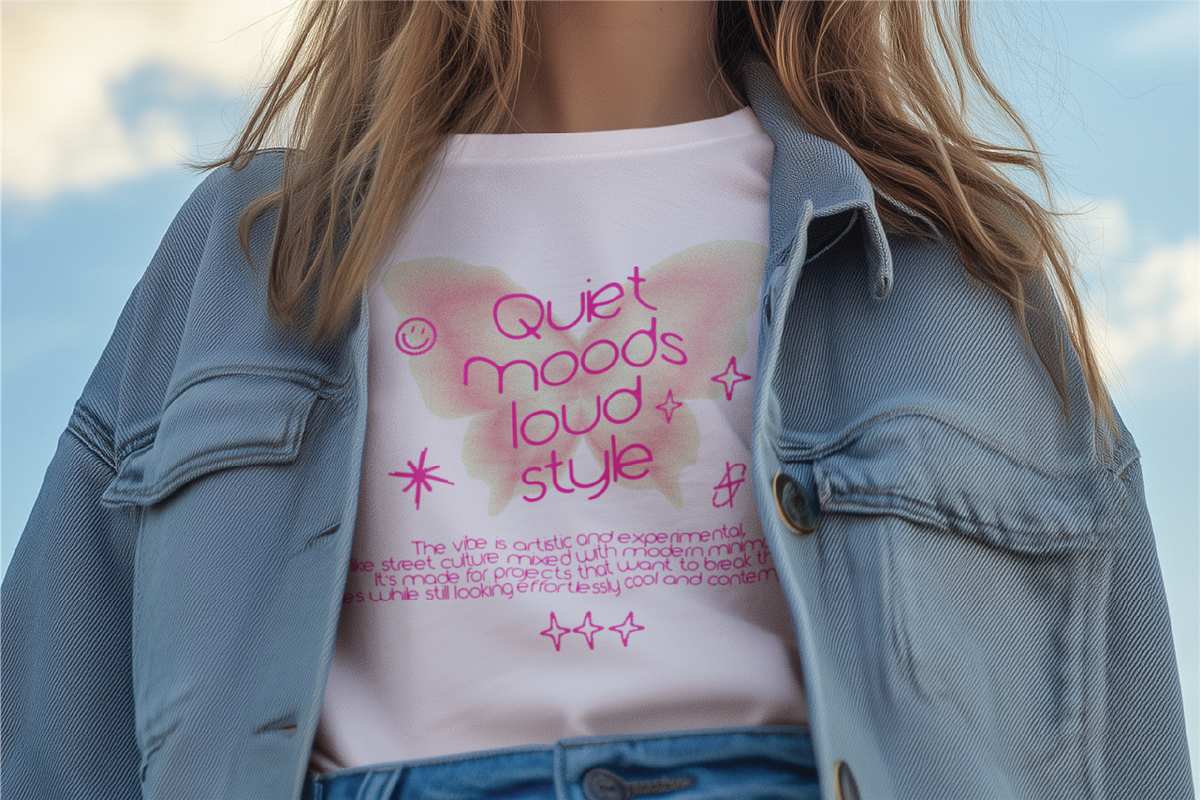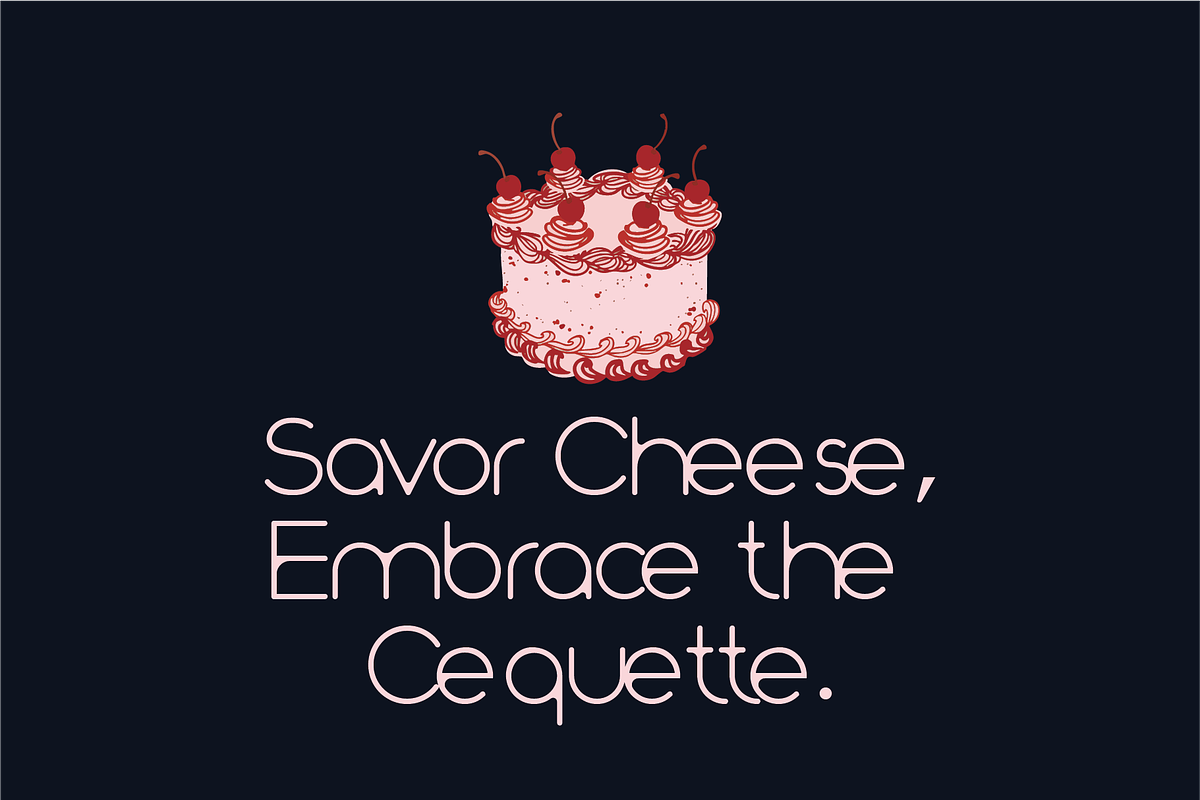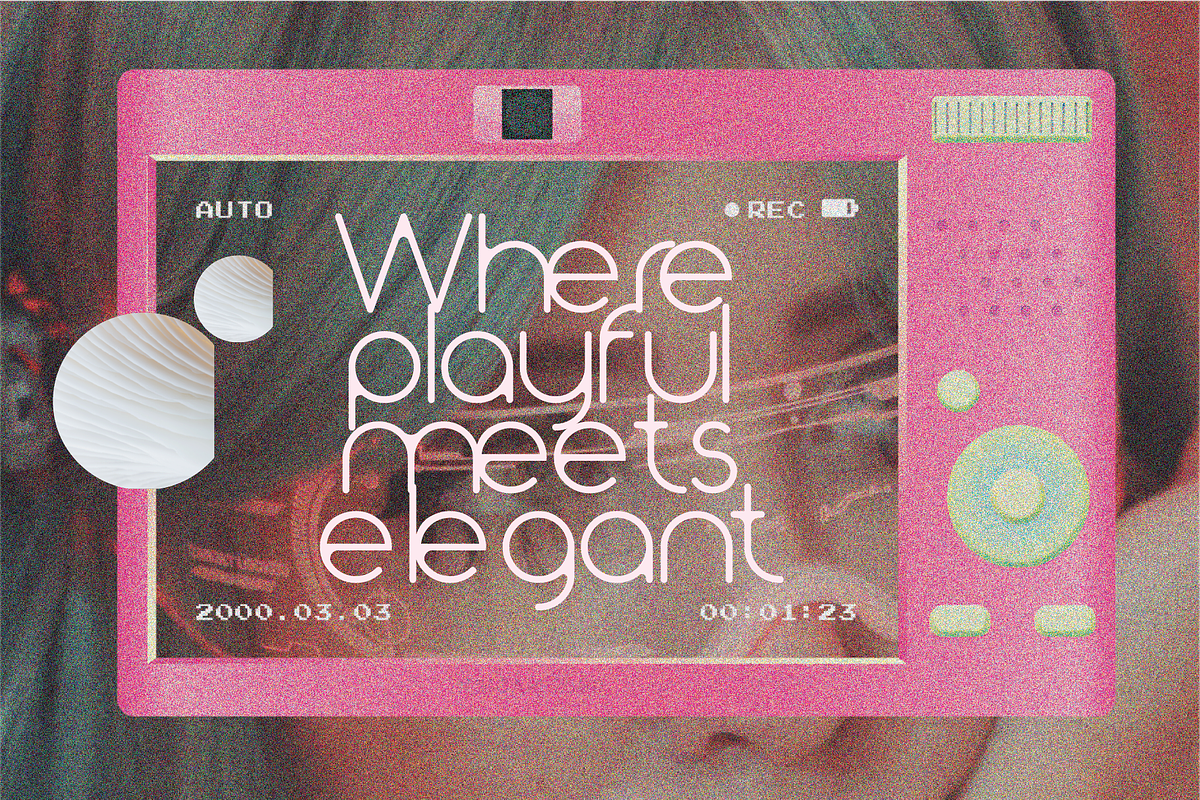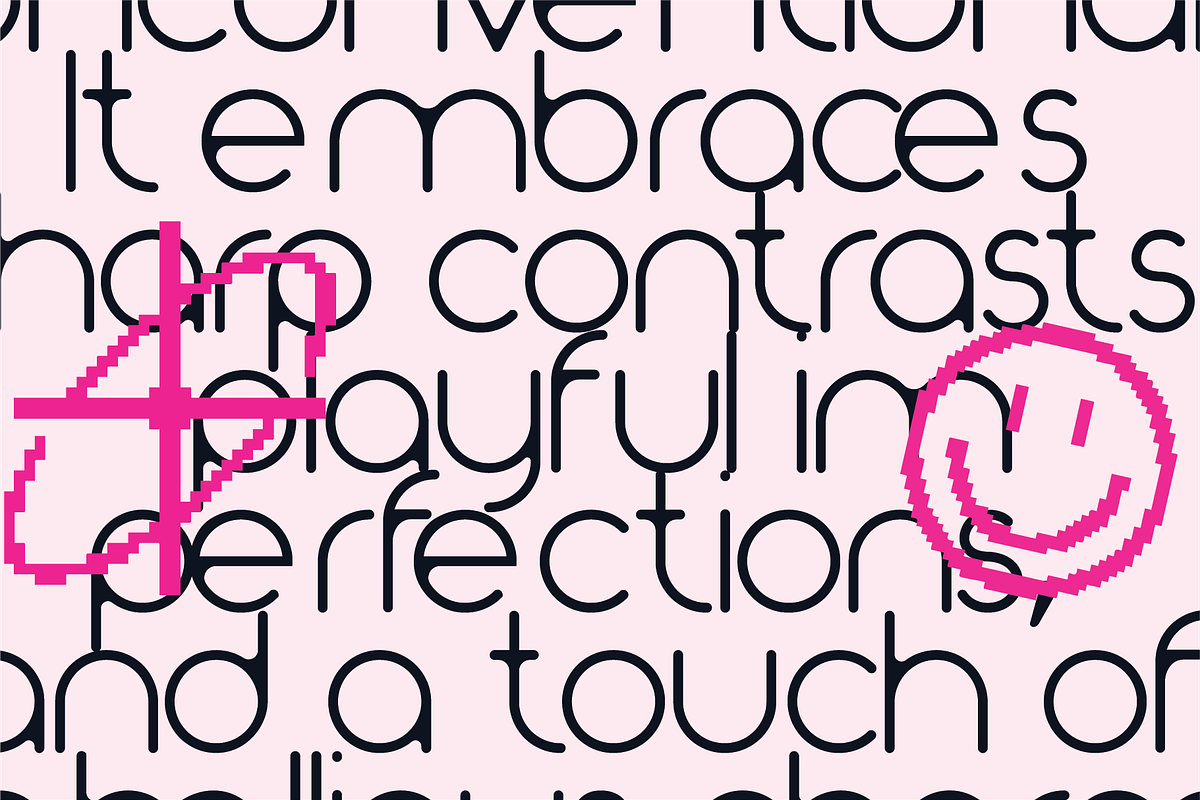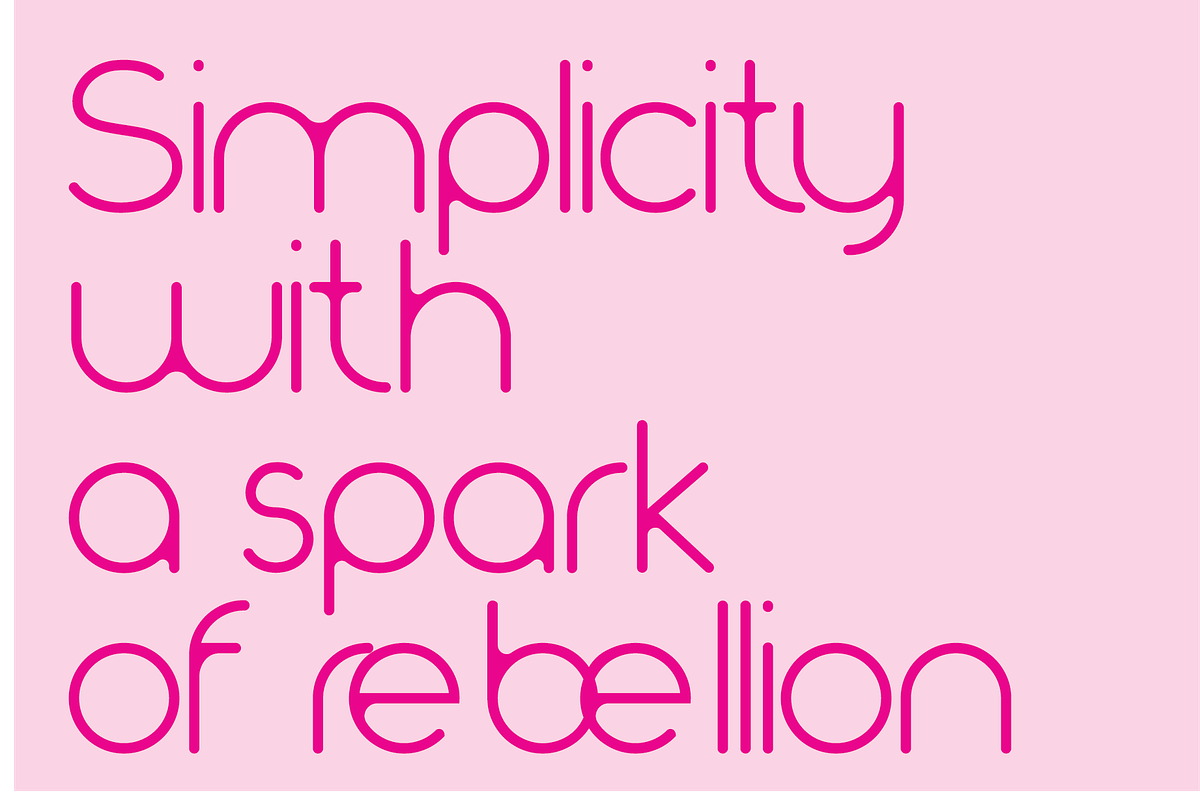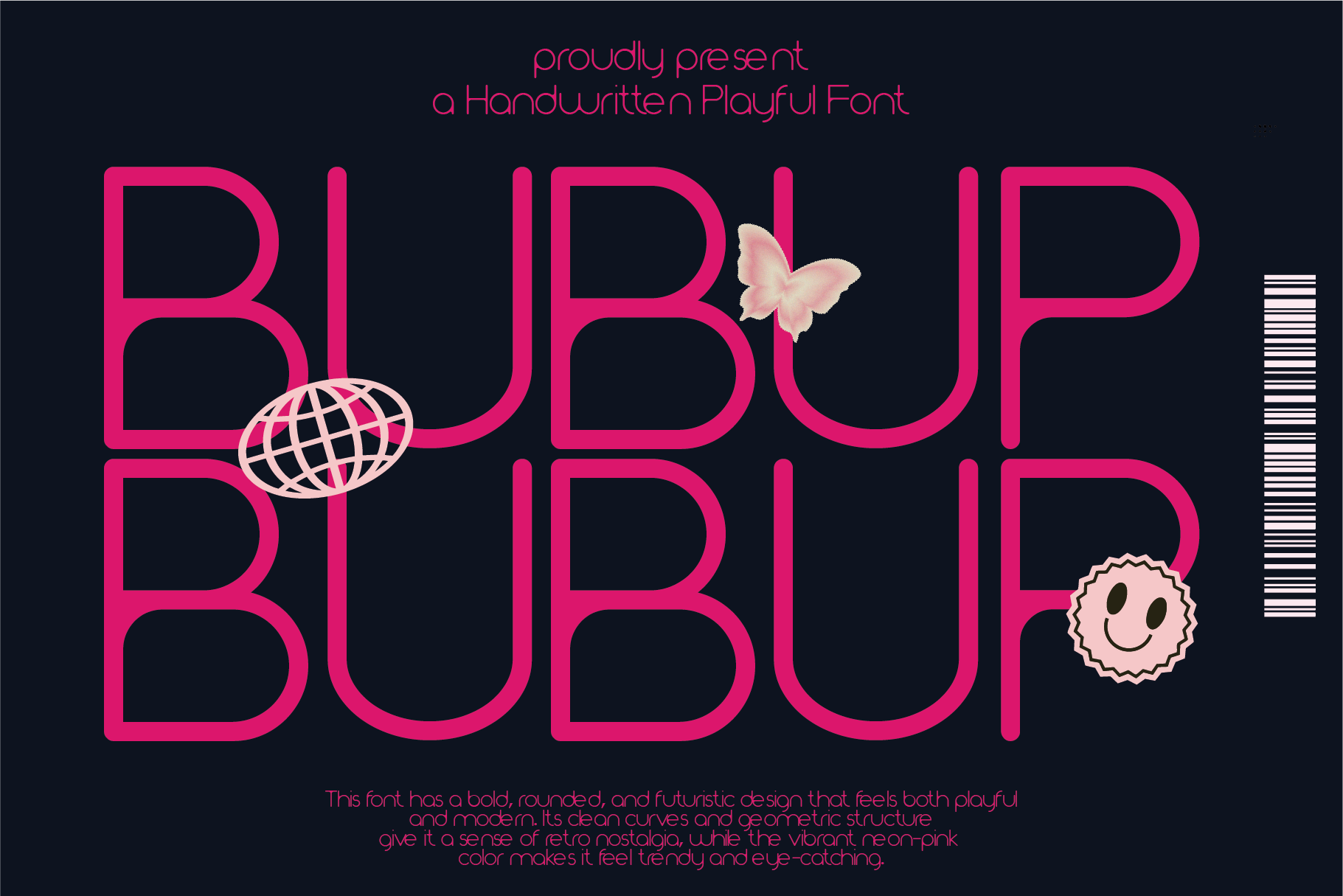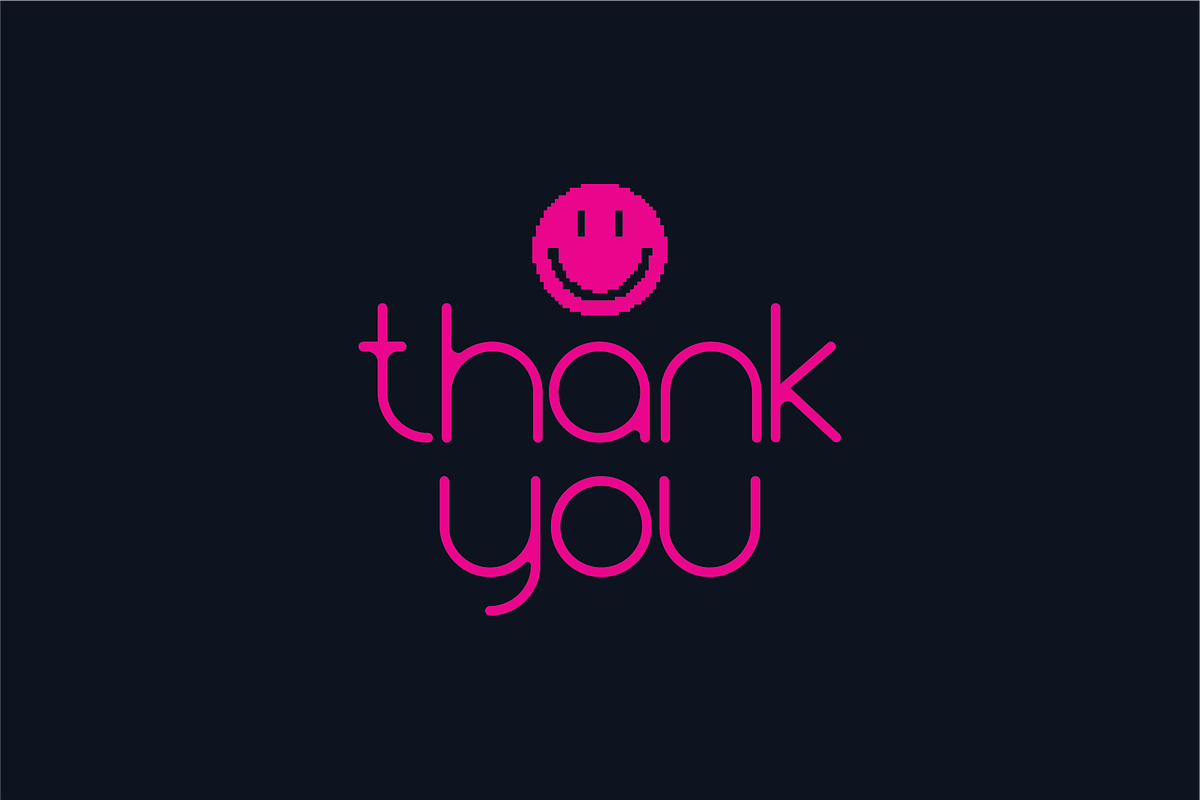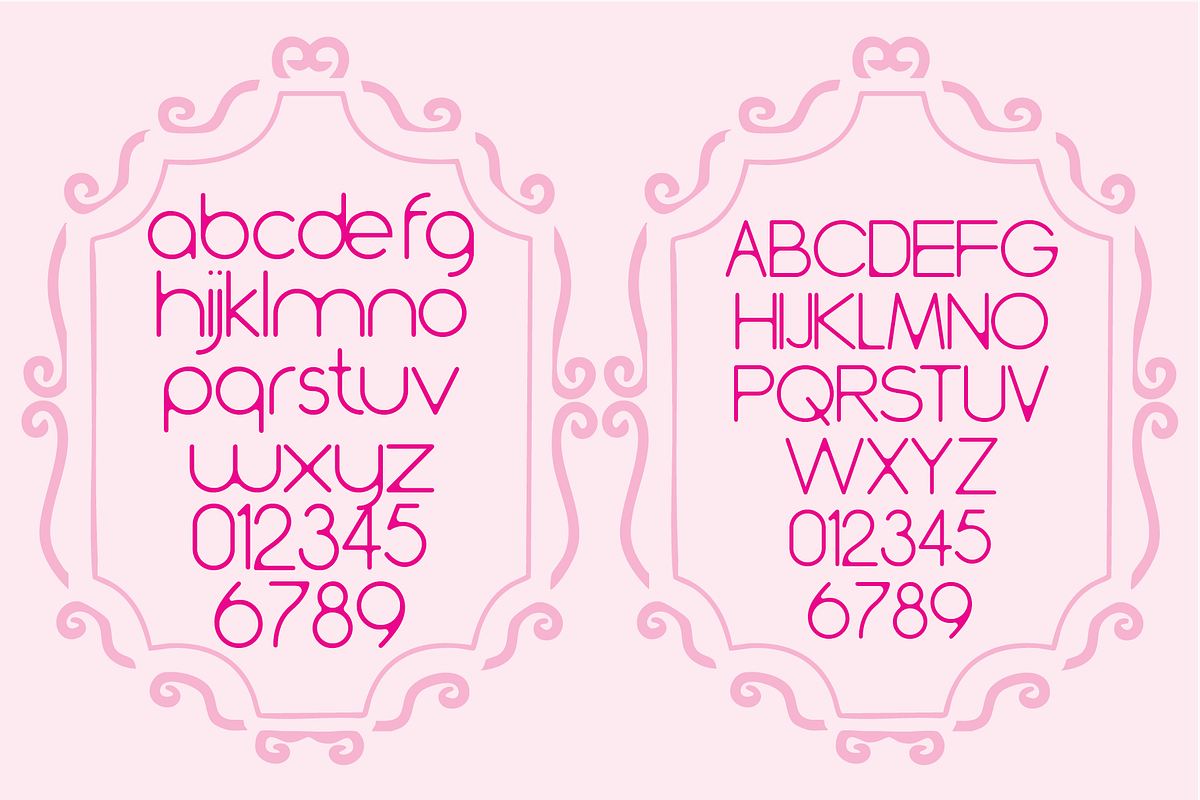
Bubup Handwritten Font
Bubup is a bold and bubbly display font designed with smooth rounded lines and a playful geometric twist. Its open shapes and thick strokes create a fun, modern, and youthful feel, making it stand out in any layout. The letters feel soft and friendly, yet stylish—perfect for projects that want to be cute, trendy, and full of personality.